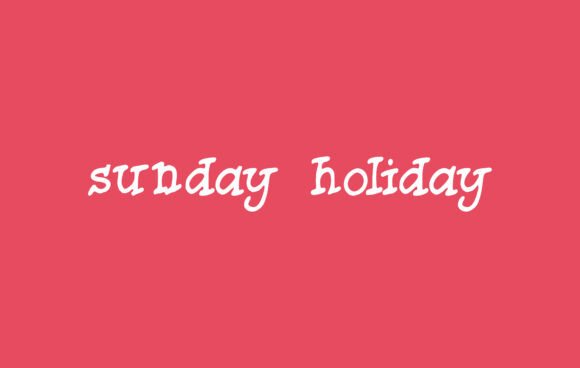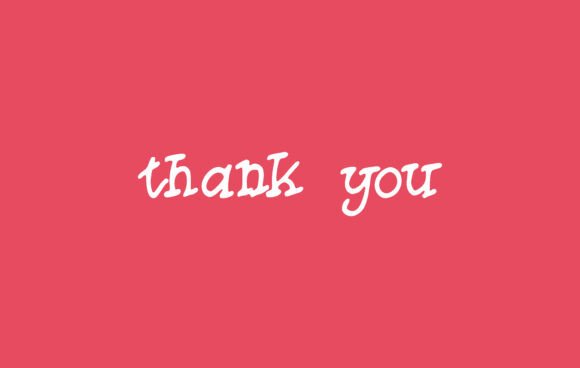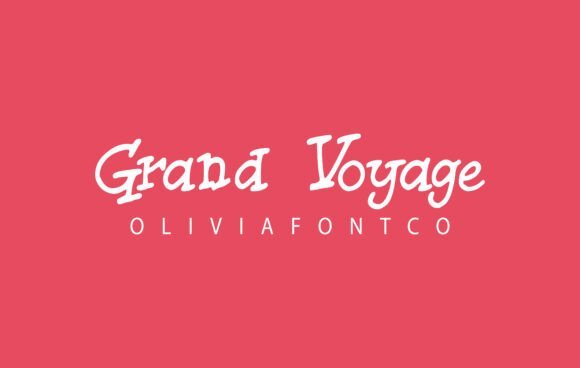
Grand Voyage font is an authentic handwritten font with a romantic touch.
Grand Voyage Font offers exceptional quality and versatility, making it a valuable addition to your design toolkit. Whether you’re creating for personal projects or commercial use, Grand Voyage Font delivers professional results.